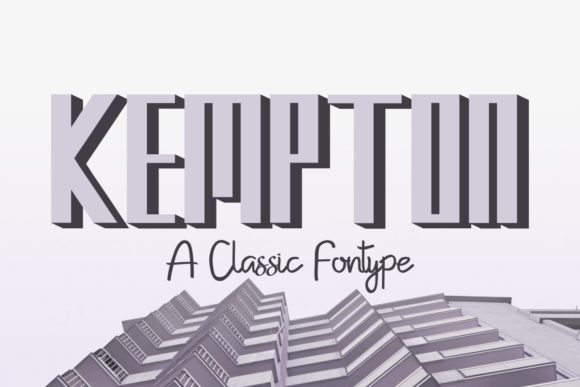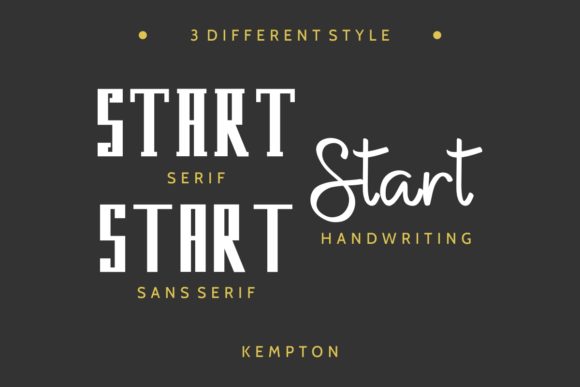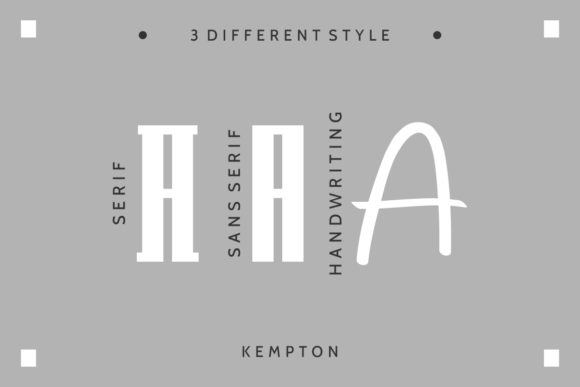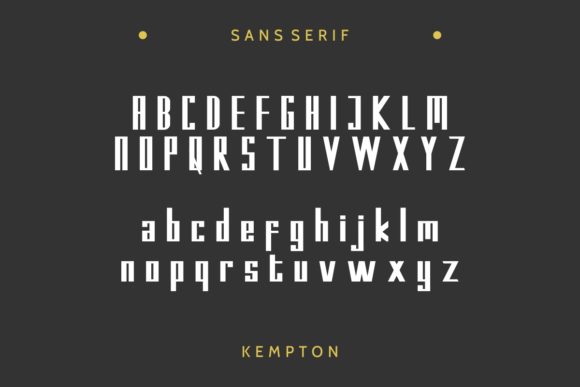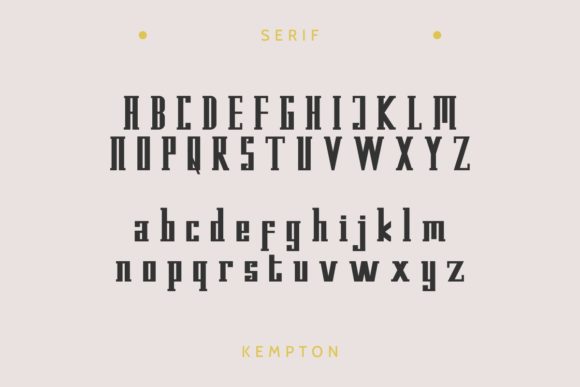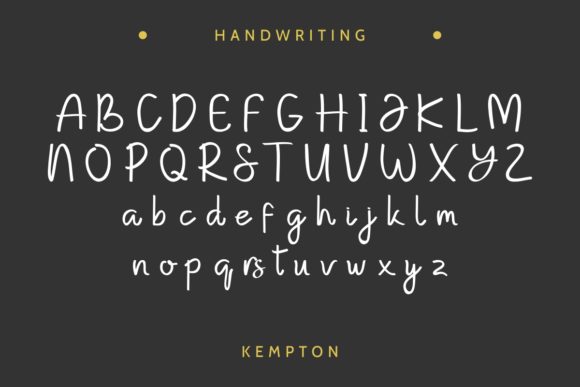
Introduction to Kempton Duo Font Font
Fonts play a crucial role in design, and the Kempton Duo Font font is a typeface that brings both character and versatility to any project. Whether you’re working on a branding project, a website, or a print design, the Kempton Duo Font font offers a unique style that can elevate your work.
Kempton is a fun and light font duo with a contemporary twist.
Use it to turn any design project into an eye catcher .
Why Choose Kempton Duo Font Font?
The Kempton Duo Font font is more than just a typeface – it’s a design tool that helps you communicate your message with style and clarity. Its unique character set and versatile design make it suitable for a wide range of applications, from elegant invitations to bold headlines.
With its carefully crafted letterforms and balanced proportions, the Kempton Duo Font font ensures readability and visual appeal across all mediums.
What makes Kempton Duo Font font special?
The Kempton Duo Font font stands out with its unique design, exceptional readability, and versatility across various design applications.